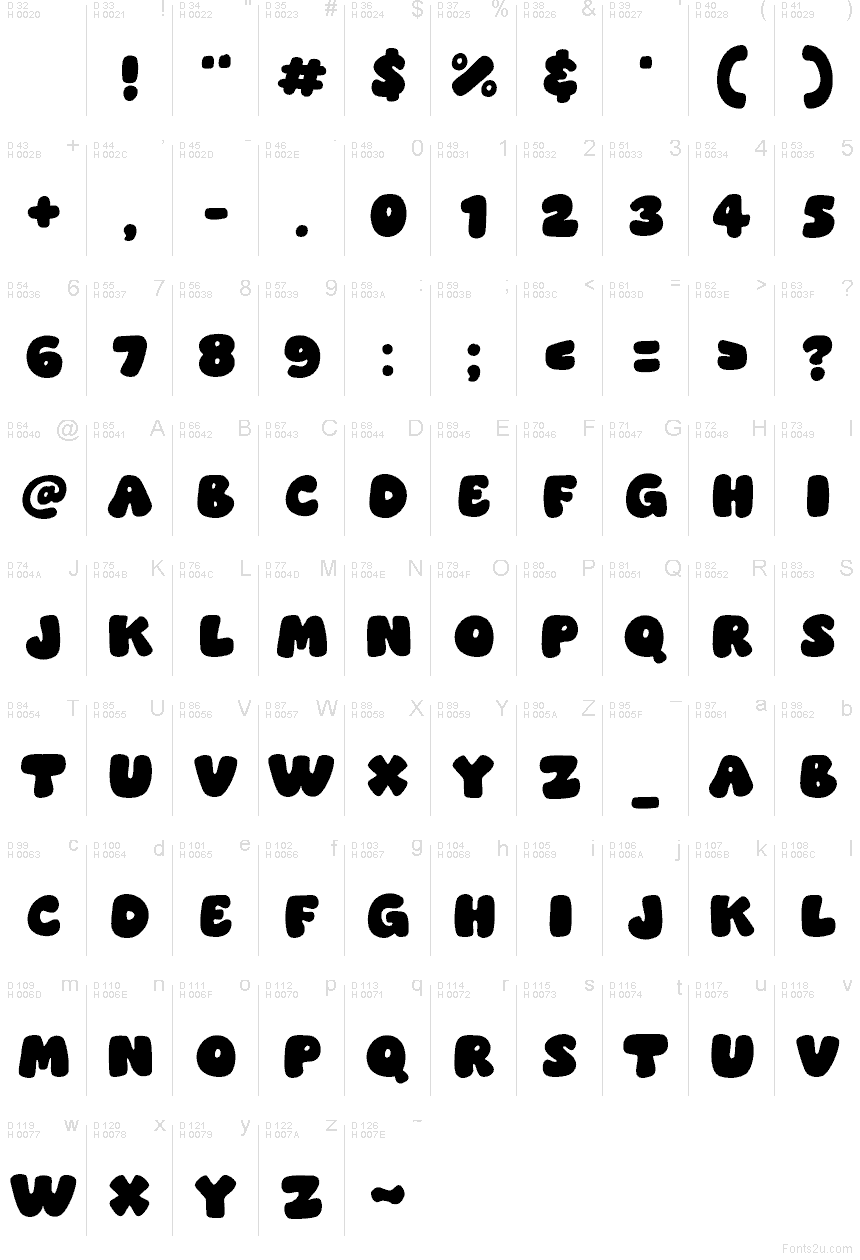
Green Ocean
Green Ocean font by MJType is a free cartoon display typeface with big, squeezable letterforms that feel like they’ve been shaped out of soft foam or sea bubbles. The chunky silhouettes, rounded corners, and tight rhythm give every word a bouncy, high-energy presence that’s easy to read even from a distance, while still feeling friendly and handmade.
Using Green Ocean, this free font shines on kids’ book covers, toy packaging, birthday invitations, summer camp posters, playful logos, game titles, and YouTube thumbnails. Its bold, inky weight loves bright color contrasts and simple backgrounds; for longer supporting text, pair it with a clean geometric sans at smaller sizes so the headline can do the shouting.